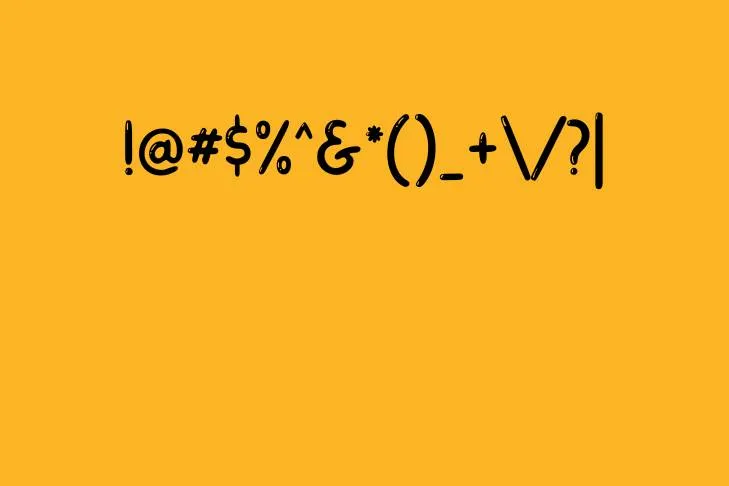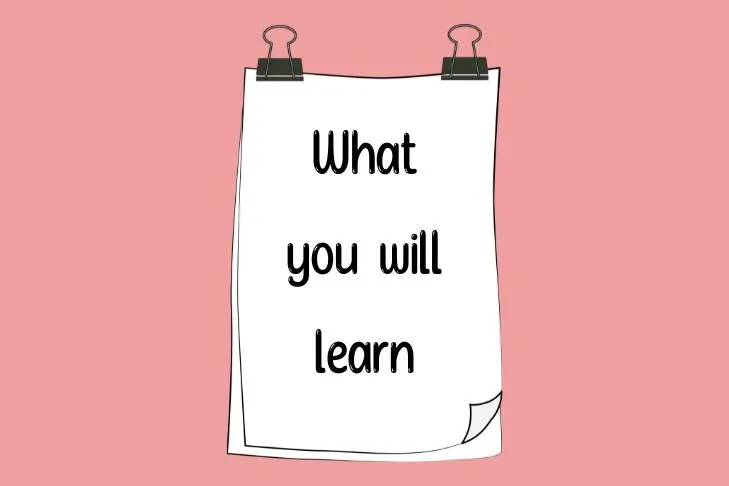
Shiny Flakes is an adorable Display font that is wonderfully created by NH Fonts Studio. This is a fabulous font having thick and bold strokes with delicate curves and sharp edges. It occupies both upper and lowercase letters, numerals and symbols.
This futuristic typeface has a distinct and attractive display that is ideal for numerous design projects. Moreover, this outstanding typeface is supported by several international languages, including French, English, Italian, Spanish and many more.
Variations and Styles in Font Family
This impeccable typeface is available in Regular and Bold weights and each weight includes particular alternates and ligatures which gives freedom of choice to creative professionals and designers. Its Bold weight is suitable for logos, headlines and titles, whereas its Regular weight is appropriate for body text and other such purposes.
Display of Shiny Flakes Font
Font Details
Name | Shiny Flakes Font |
Designer | NH Fonts Studio |
Style | Display |
Pairing Options for Shiny Flakes Font
Shiny Flakes font goes well with other Display or Sans-Serif fonts and produces fascinating results. It can be combined with Roboto, Lato or Open Sans font to serve different purposes like creating social media posts, short and long paragraphs, product descriptions, etc.
It can also be paired with Display fonts like Georgia, or Times New Roman to show a contrasting effect to any design. Graphic designers can do experiments with various typefaces to obtain the desired aesthetics and to set a cohesive appeal of your designs.